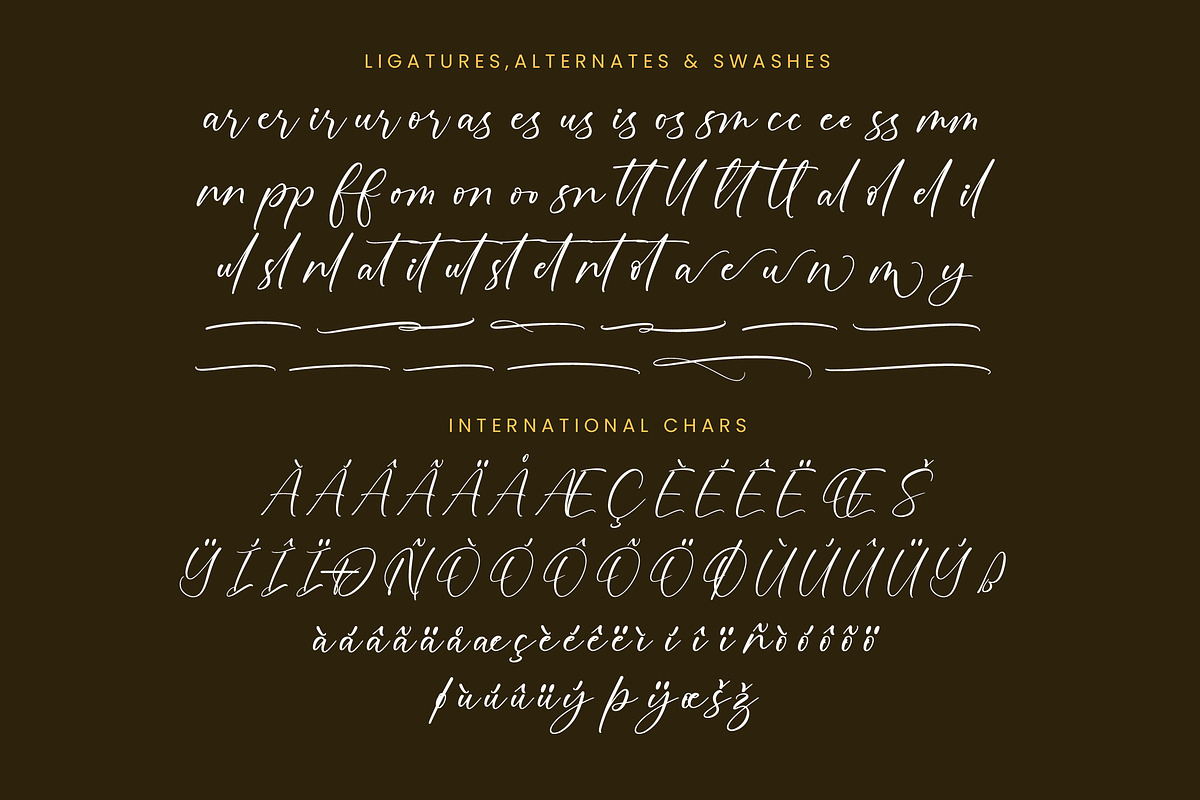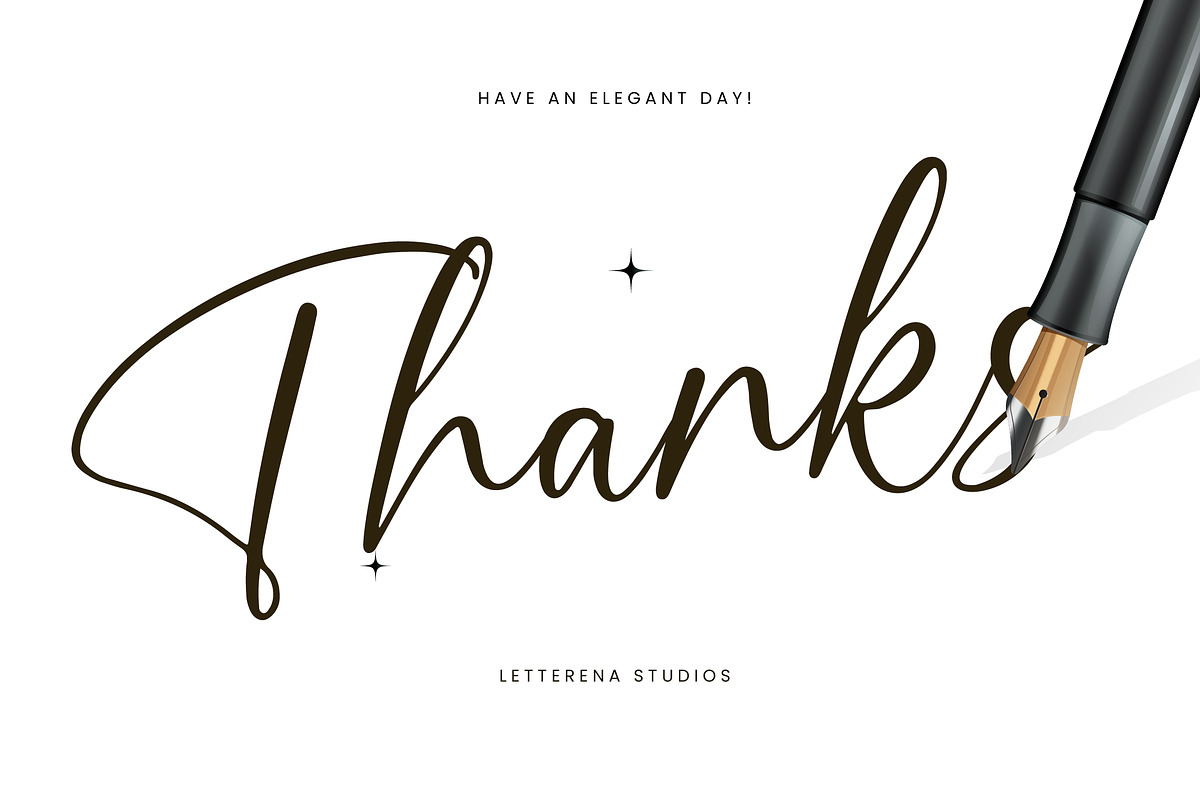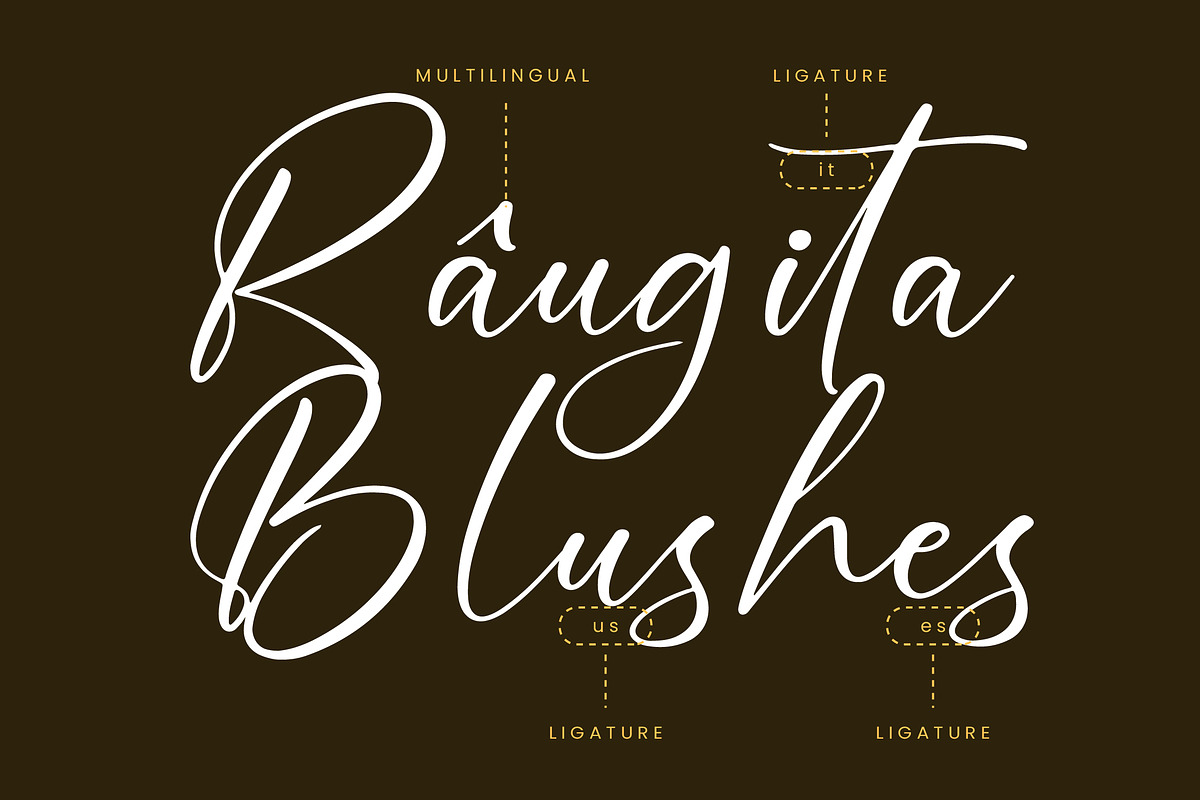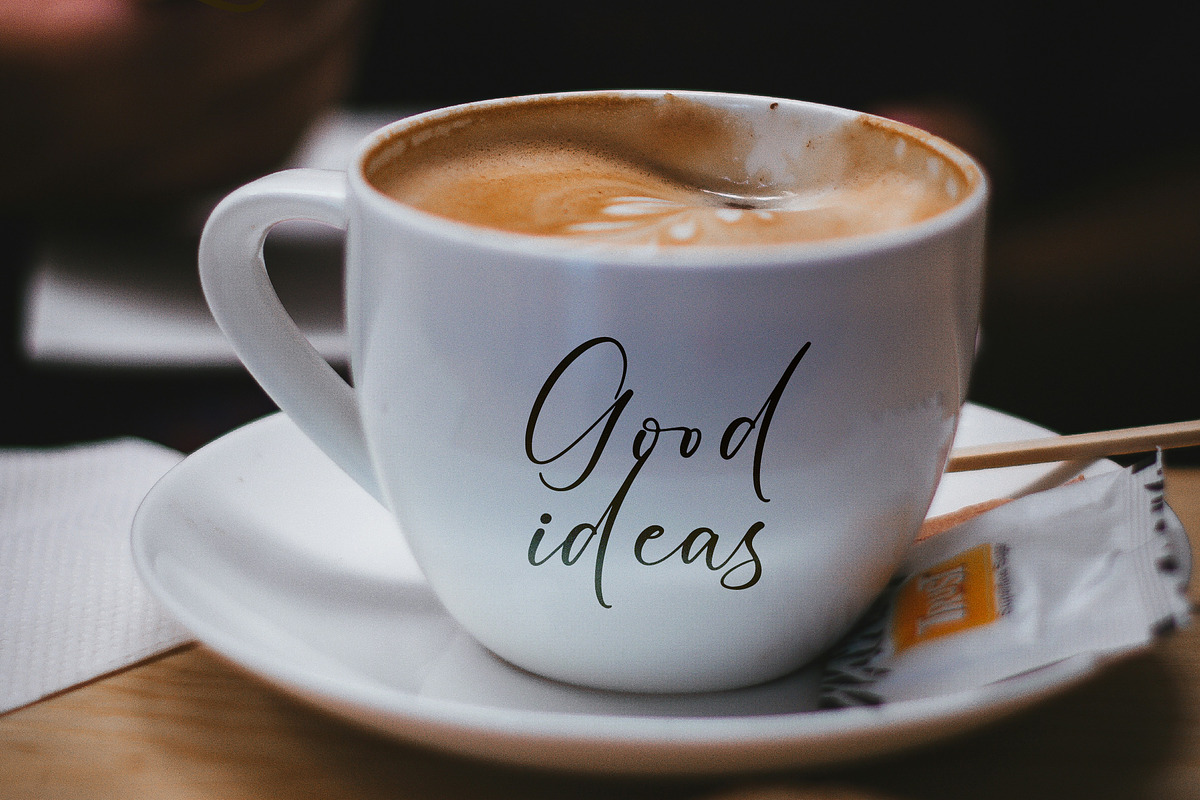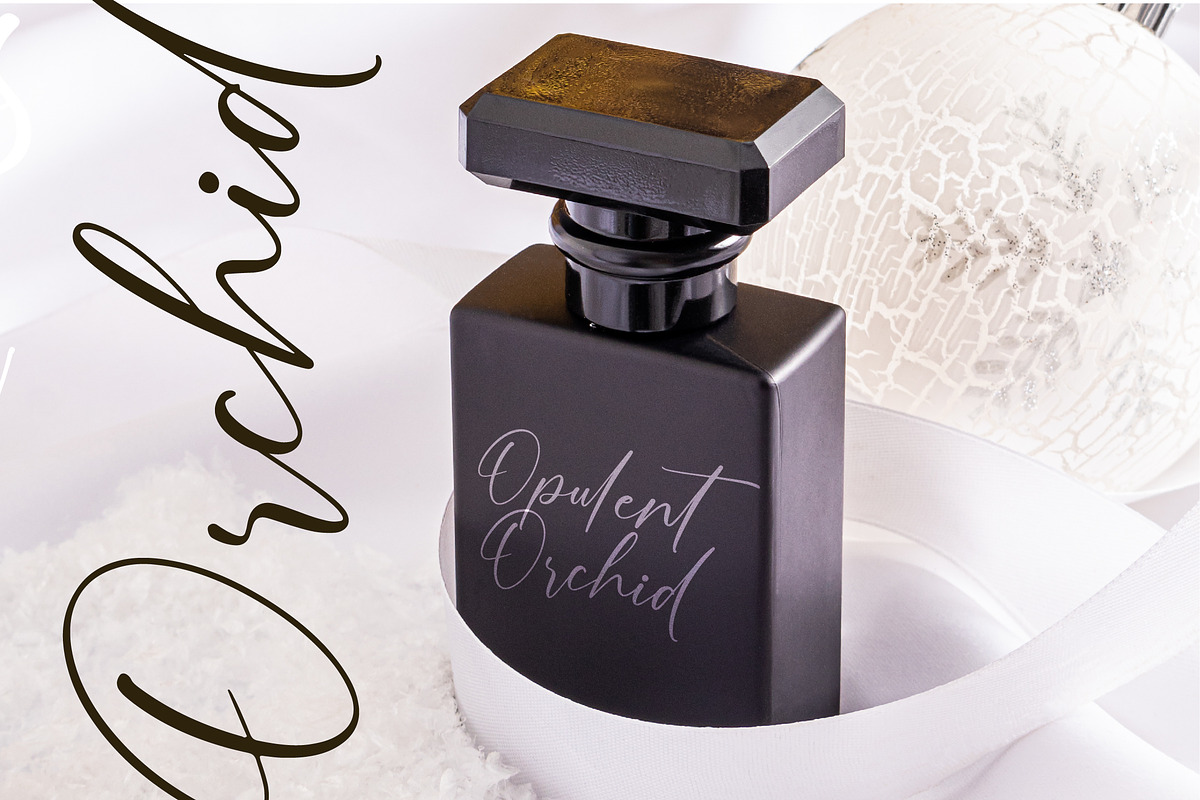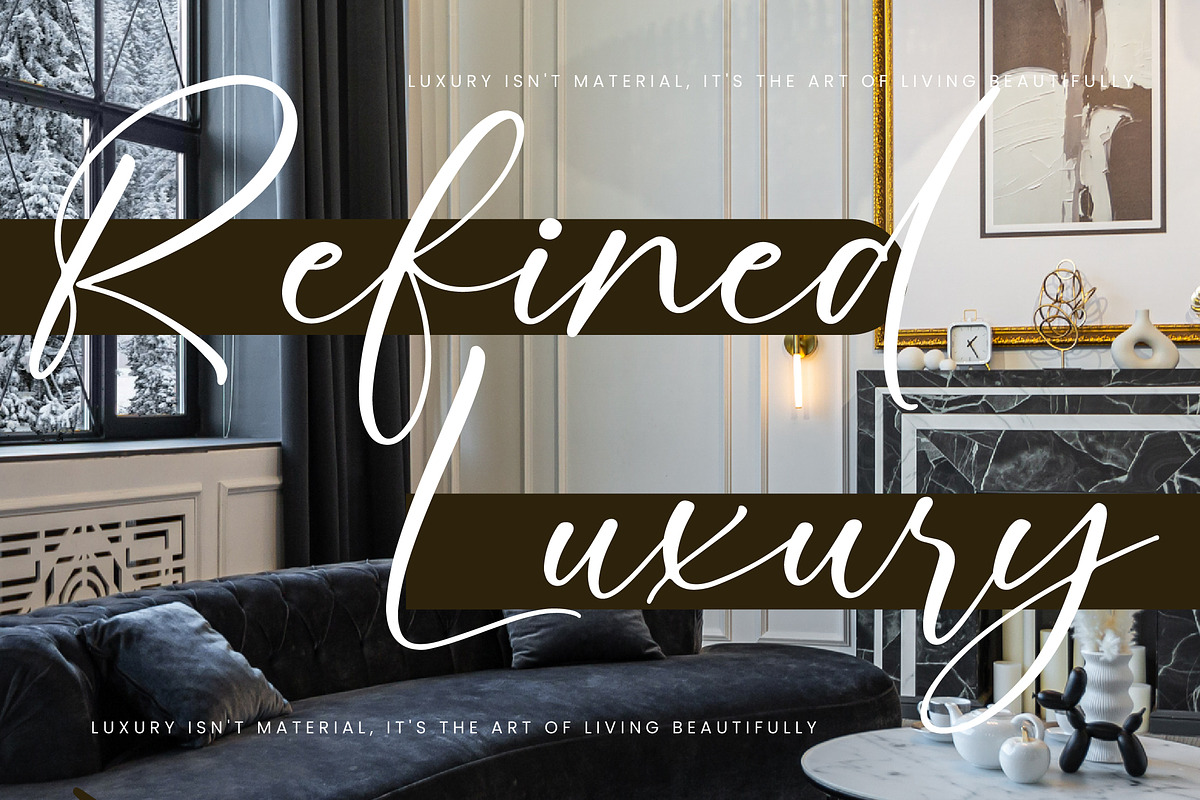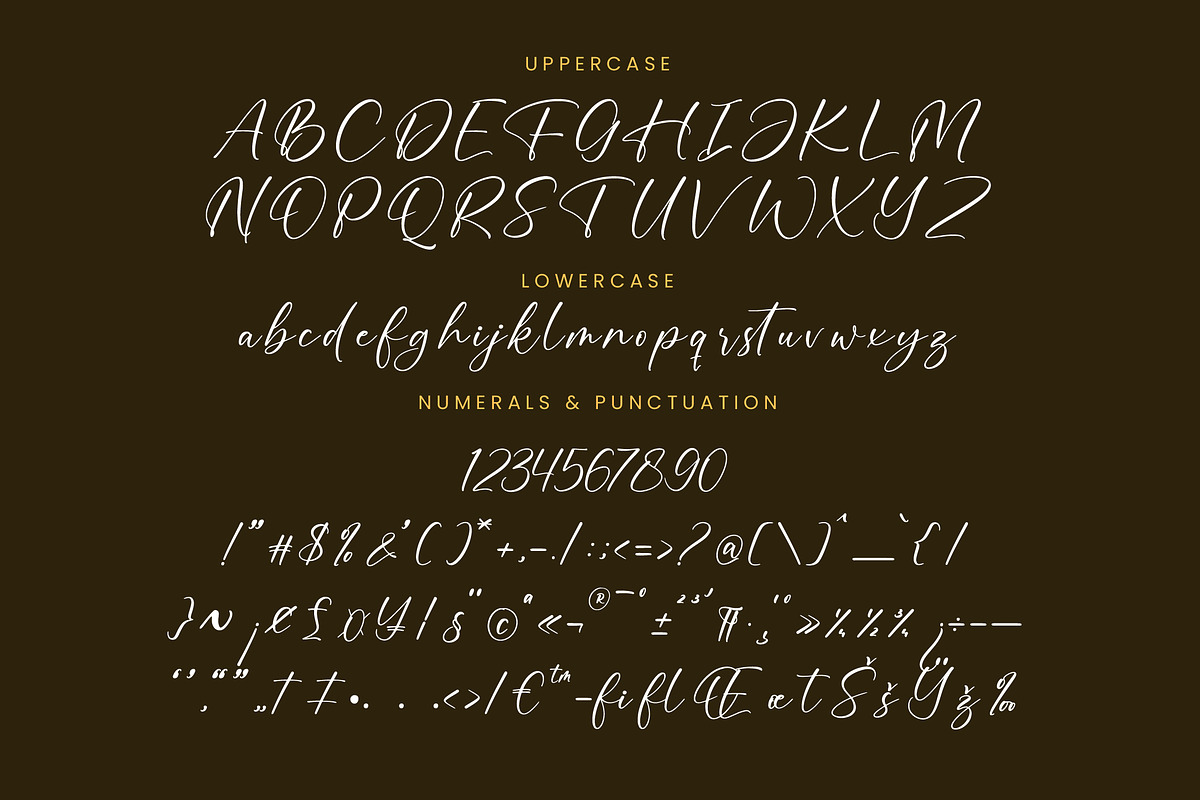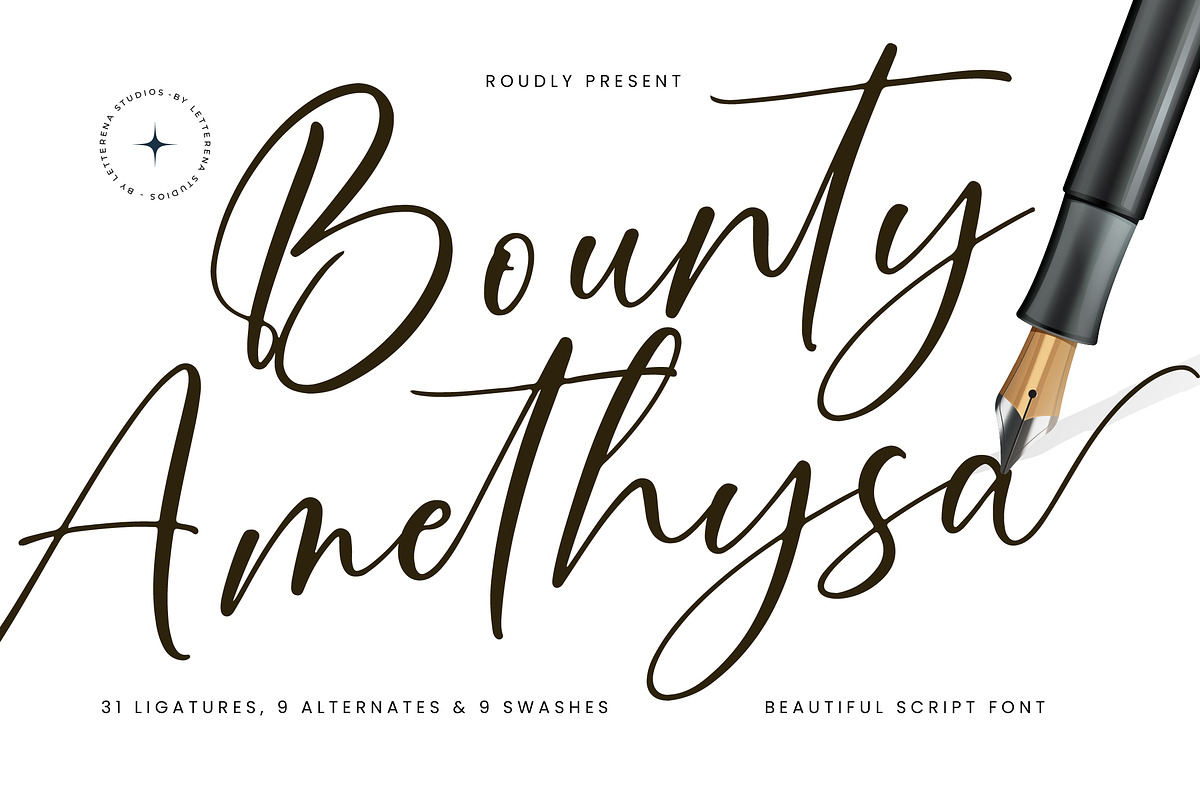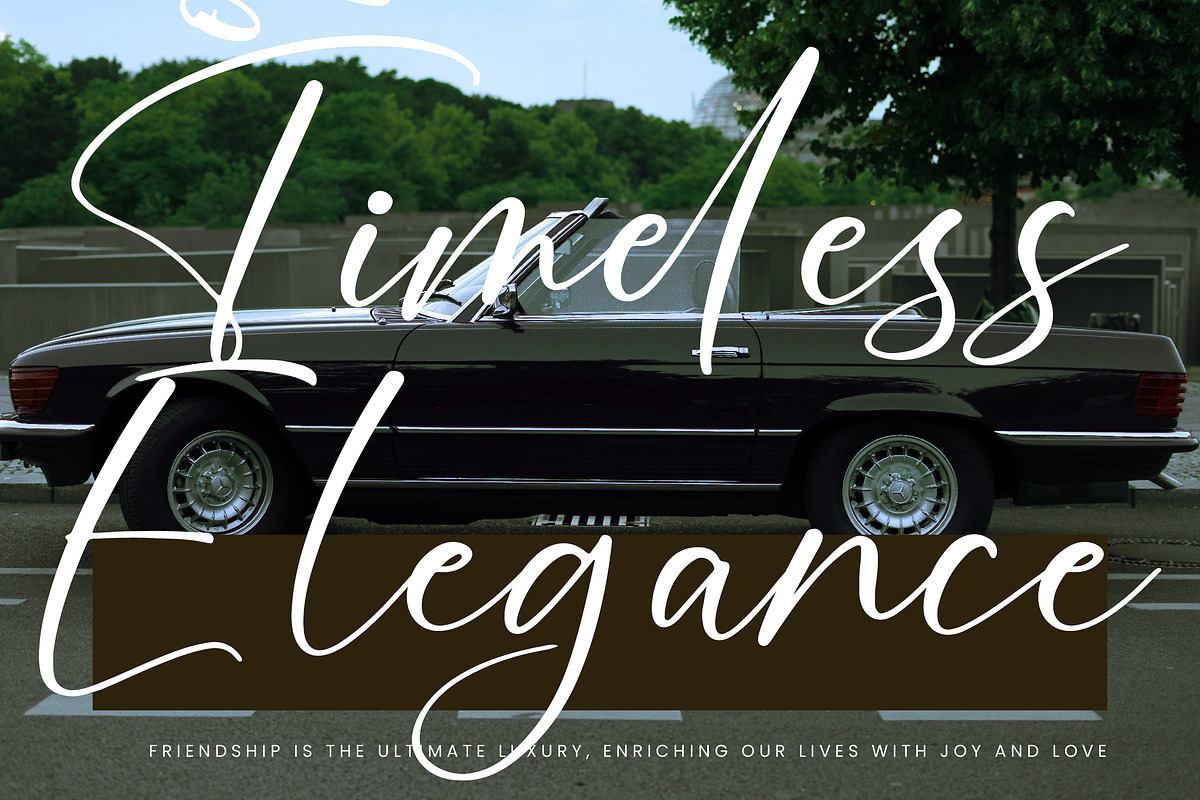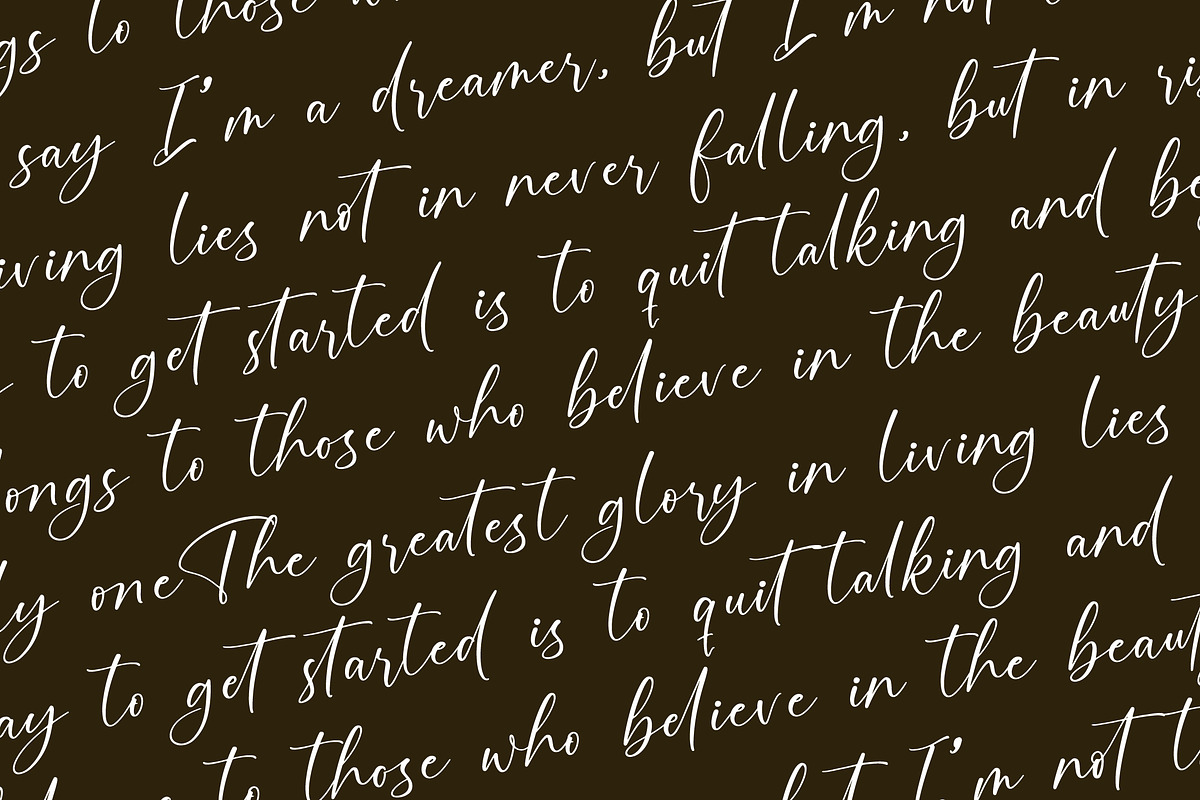
Bounty Amethysa Beautiful Script
Bounty Amethysa – Beautiful Script Font , from Letterena, is a Luxury Script font, suitable for any projects such as: logos, branding projects, homeware designs, product packaging, mugs, quotes, posters, shopping bags, t-shirts, book covers, name card, invitation cards, greeting cards, label, photography, watermark, special events, and all your other luxury and beautiful projects that need a Luxury Script taste.